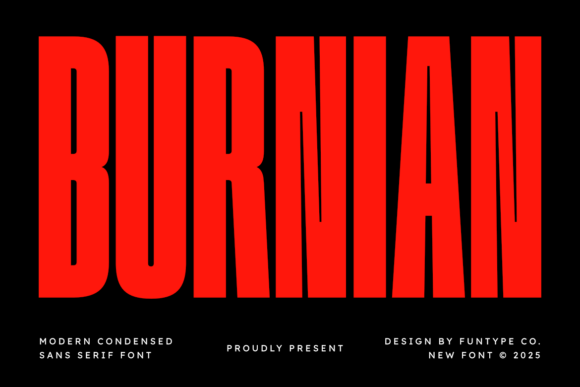
The Ultimate Font for Impactful Typography: A Deep Dive into Burnian Font
I’ll never forget the time I was working on a project for a high-end fashion brand, and I was struggling to find the perfect font to convey their luxurious and modern vibe. The client was specific about wanting something bold, elegant, and attention-grabbing. After hours of scouring through font libraries, I stumbled upon Burnian Font, and it was love at first sight! ✨ In this article, I’ll share my experience with Burnian Font, its features, and how to make the most of it in your designs.
Burnian Font: A Bold and Elegant Sans Serif
Burnian Font is a bold and elegant condensed sans serif font designed specifically for impactful typography. Its tall structure and clean geometric lines make it perfect for strong headlines, modern posters, album covers, lifestyle graphics, branding, and high-impact advertising. The font’s clean and confident design gives your visuals a striking and professional look, making it an excellent choice for designers, crafters, and creative hobbyists.
- ✅ Versatility: Burnian Font is incredibly versatile and can be used for a wide range of design projects, from posters to social media graphics.
- ✨ Elegant and Modern: The font’s clean lines and geometric structure give it a sophisticated and modern look that’s perfect for high-end brands.
- ✅ Legibility: Despite being a condensed font, Burnian Font remains highly legible, even at smaller sizes.
While Burnian Font is an excellent choice for many design projects, there are a few things to keep in mind:
- ⚠️ Limited use for body text: Due to its condensed nature, Burnian Font may not be the best choice for lengthy body text. It’s best suited for headlines and titles.
- 🤔 Some glyphs may require adjustment: Depending on the design, some glyphs (like the ampersand or dollar sign) may require manual adjustment to fit perfectly with the rest of the text.
The Story Behind Burnian Font
Burnian Font was designed with the goal of creating a bold and elegant sans serif font that would make a statement in any design project. The designer, inspired by modern typography and geometric shapes, crafted Burnian Font to be both versatile and eye-catching. While the designer’s identity may be unknown, their passion for typography and design excellence shines through in every detail of the font.
| Font Name | Burnian Font |
| Author | Funtype Co. |
Q: What is Burnian Font best used for?
A: Burnian Font is best used for strong headlines, modern posters, album covers, lifestyle graphics, branding, and high-impact advertising.
Q: Is Burnian Font suitable for body text?
A: While Burnian Font is legible, it’s not ideal for lengthy body text due to its condensed nature. It’s best suited for headlines and titles.